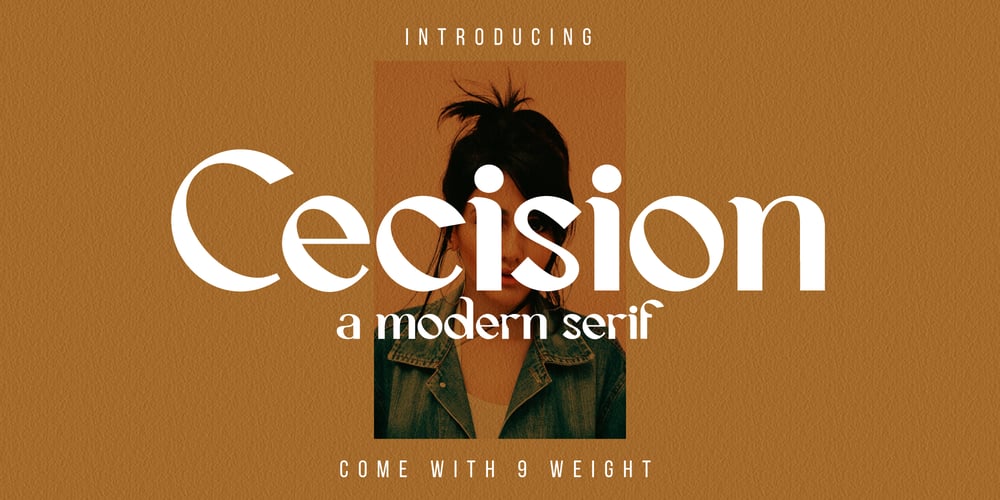
Cecision Font Family was designed by Yahhya Anas Atok Illah and published by WNGSTD. Cecision contains 7 styles and family package options. Cecision is a modern and fashionable serif font. It will elevate a wide range of crafting ideas, from cards to branding, labels, and much more.Add it confidently to your favorite creations and let yourself be amazed by the outcome generated.